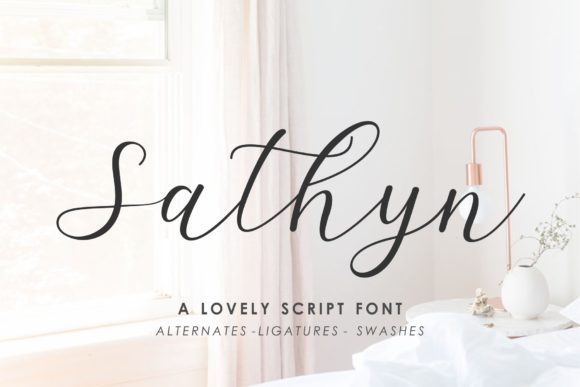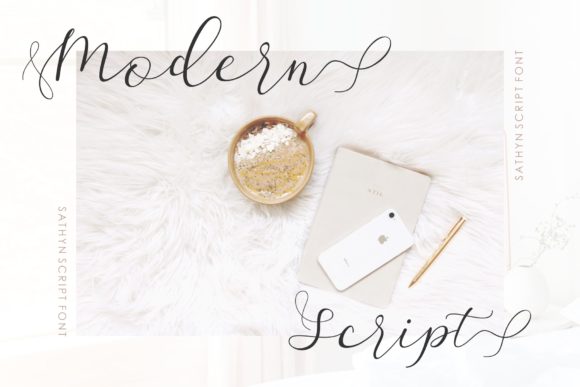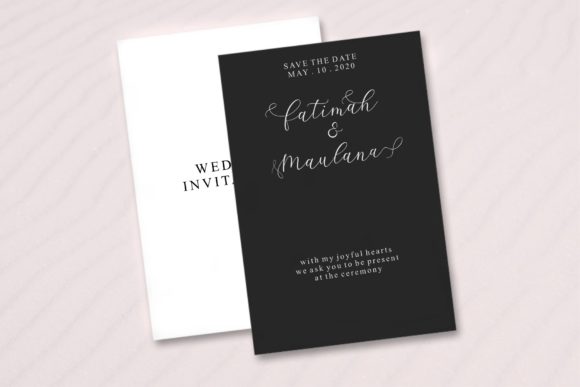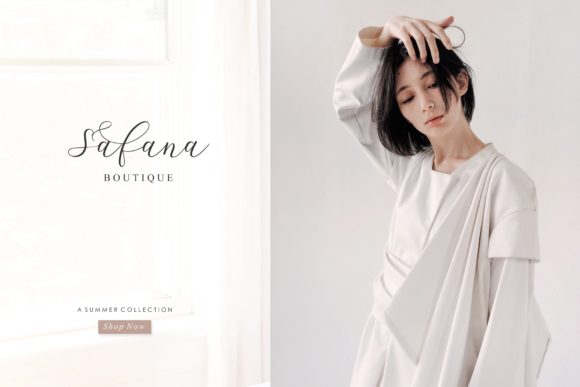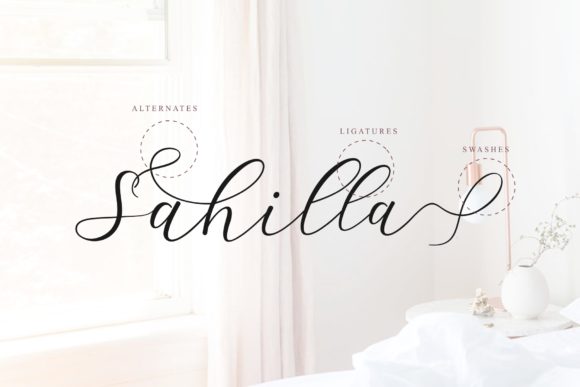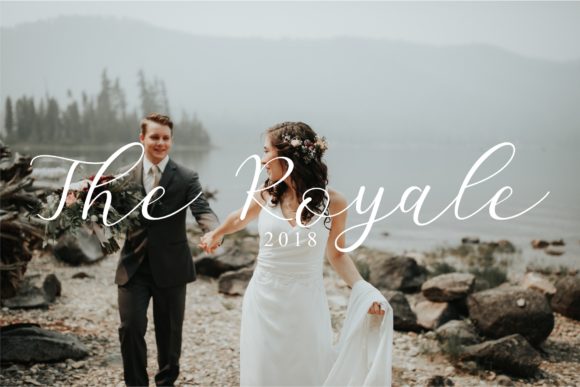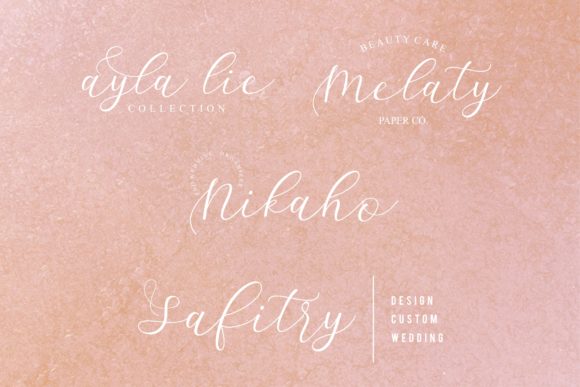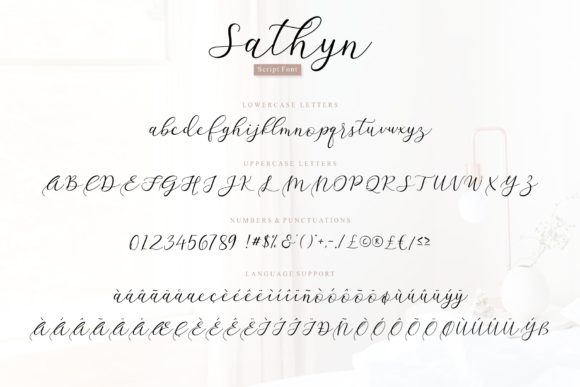
Sathyn Font
About Sathyn Font
Sathyn is a light and modern handwritten font with a sophisticated feel. It will add a touch of elegance to any design project!